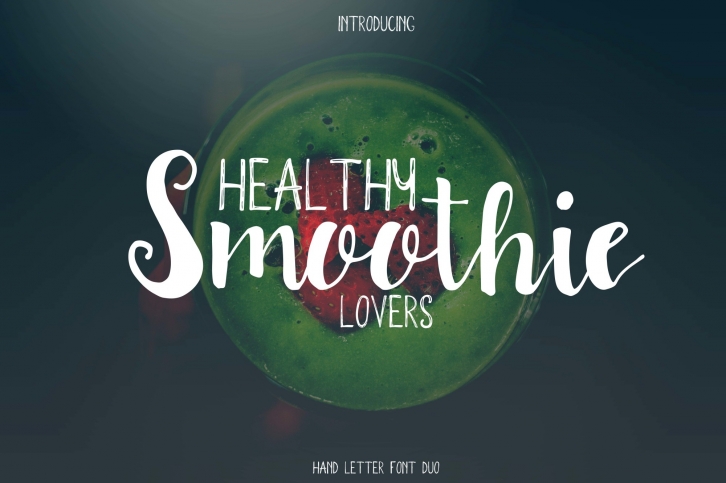
Smoothie duo is a trendy and unique font with an authentic style. It was designed by Paula Type and it's a great choice for creative people who need such a font. It was released on February 21, 2017 and the file size is 18.25 MB. Smoothie duo will add an organic vibe to any design idea!